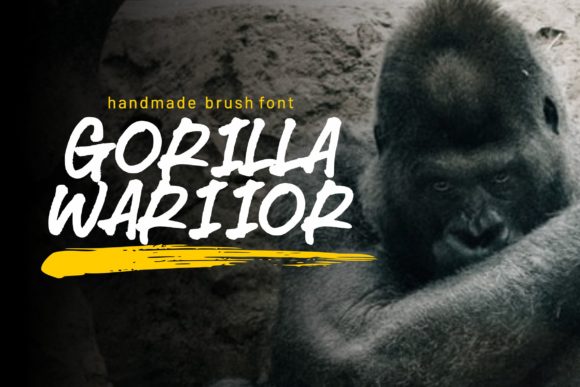
Welcome to the realm of Gorilla Warriors, a typographic force that embodies power, boldness, and visual impact. It's not just a font; it's a statement of strength and a weapon of creative expression. Allow this font to unleash your inner warrior and elevate your designs to the highest echelons of excellence.
Meet Gorilla Warriors, the display font that commands attention with its bold and dramatic strokes. Picture this: the roar of a mighty warrior reverberating through your designs, leaving an indelible mark on the minds of your audience. This font is a masterpiece of simplicity, yet it wields a power that will captivate and intrigue.
Immerse yourself in the world of Gorilla Warriors and witness the transformation of ordinary text into an extraordinary visual feast. Its bold presence is a perfect fit for logos, headings, posters, and any design element that demands immediate attention. Unleash the warrior spirit within your designs and watch as Gorilla Warriors leads them to victory.
But what makes Gorilla Warriors truly remarkable is its versatility. It's not just a one-dimensional font; it's a chameleon that adapts seamlessly to various design landscapes. From the ruggedness of vintage posters to the sleekness of modern branding, Gorilla Warriors effortlessly blends in, adding a touch of drama and distinction wherever it goes.
With Gorilla Warriors in your creative arsenal, you'll be equipped to conquer any design challenge. Its bold strokes will leave a lasting impression on your audience, making your designs unforgettable. Embrace the power of Gorilla Warriors and witness the transformation of your creative vision into a captivating reality.